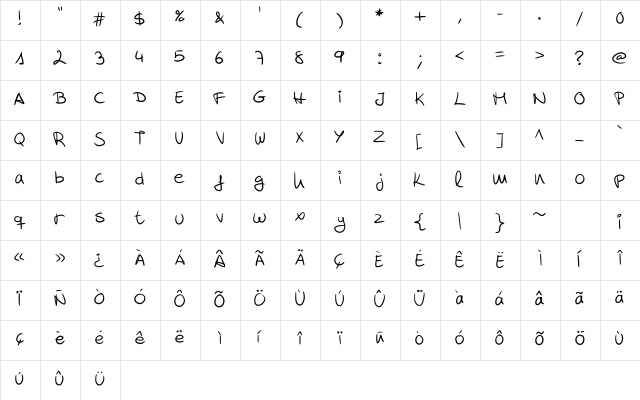
Mareta Handwritting Regular
Design Context for Mareta Handwritting Typeface
Mareta Handwritting flows with the natural rhythm of handwritten lettering, making it ideal for designs that call for warmth and personal expression.
Font Pairing: Combine Mareta Handwritting with a simple geometric sans for maximum contrast — the tension between flowing curves and clean structure is a classic typographic pairing.
Pro Tip: Pair Mareta Handwritting with a clean sans-serif for supporting text. The contrast between fluid script and geometric structure creates an elegant typographic hierarchy.